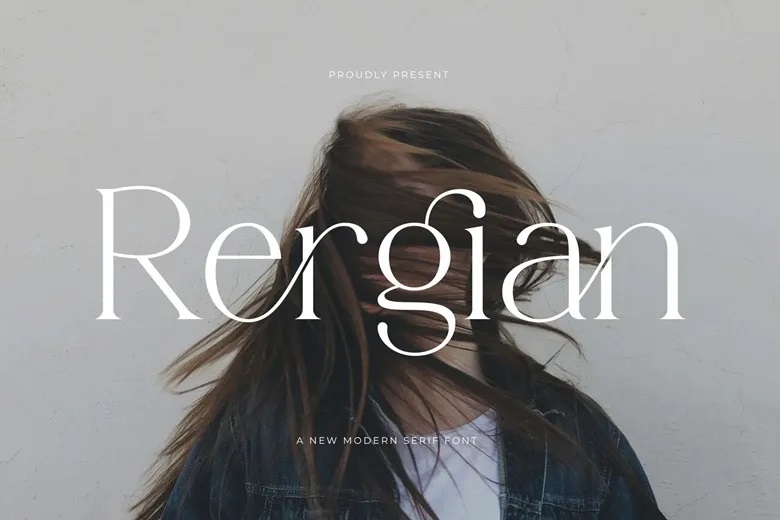
Rergian Font
Rergian Font brings an understated elegance to your designs. This sleek display typeface features clean, elongated serif letters, bold swashes, and unique ligatures that help your text flow smoothly across the page.
Rergian works well for boutique branding, artisanal skincare packaging, modern wedding invitations, and social media headers that need to feel both timeless and fresh.
Rergian Serif Font